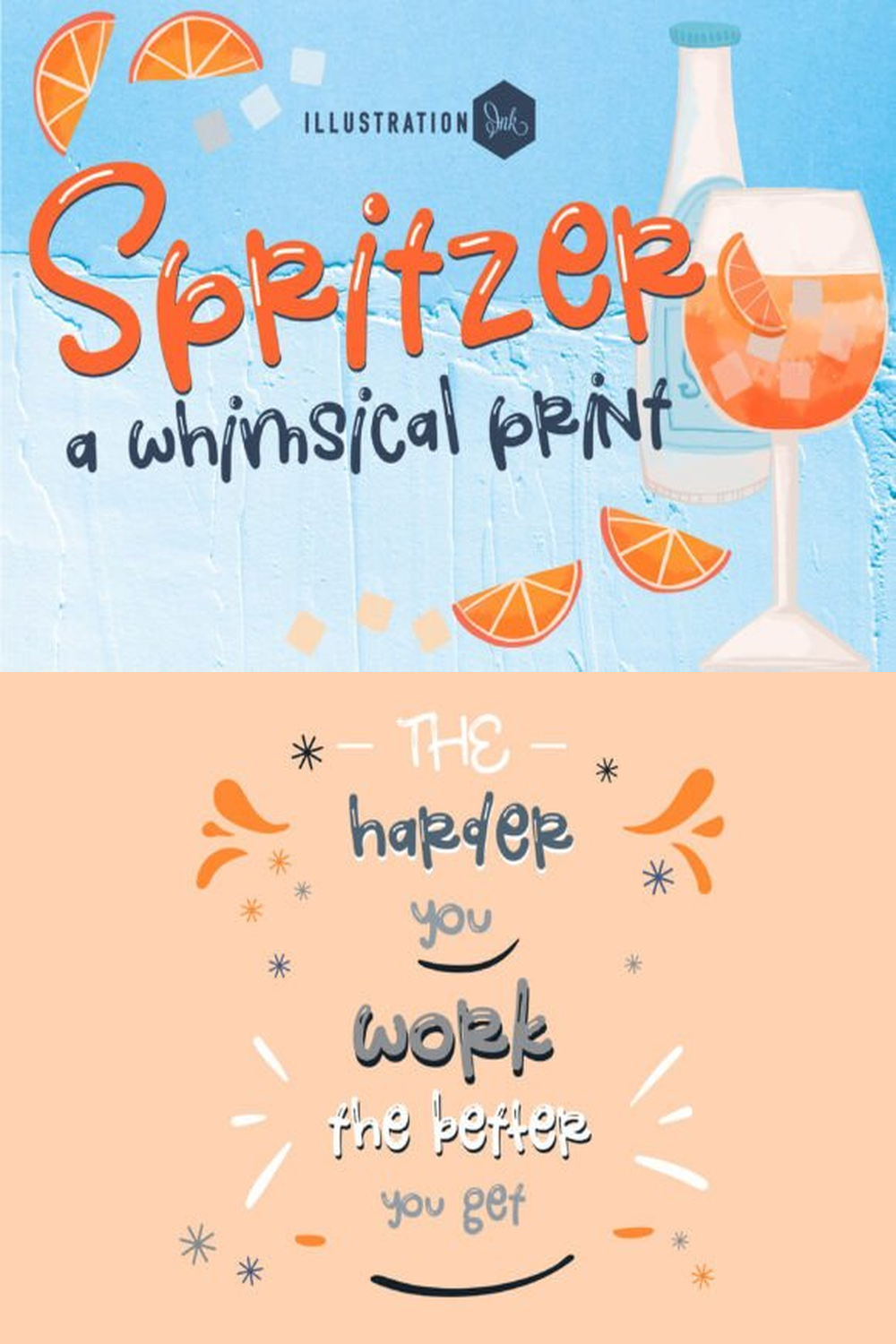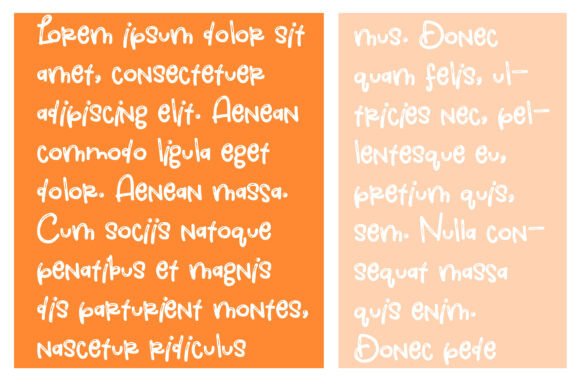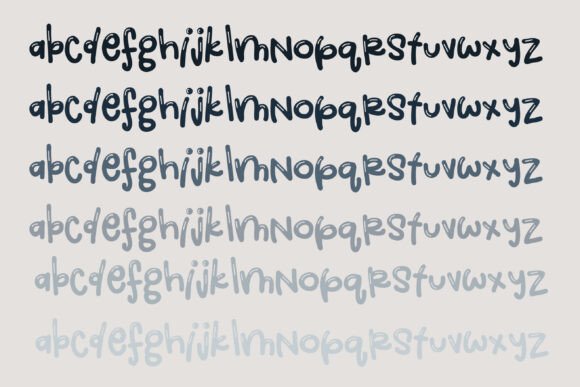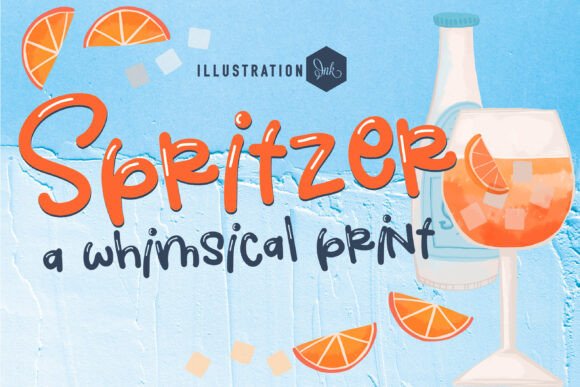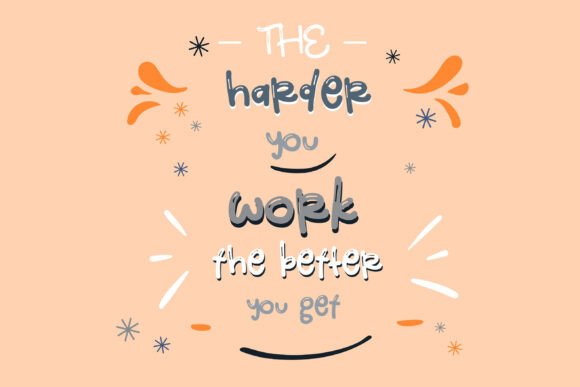
Spritzer Font
About the Spritzer Font
Welcome to the world of Spritzer Font, a typeface that will inspire your next great project. This hand-crafted font is a youthful and fun font with a bouncy baseline.
Highlighted version included.